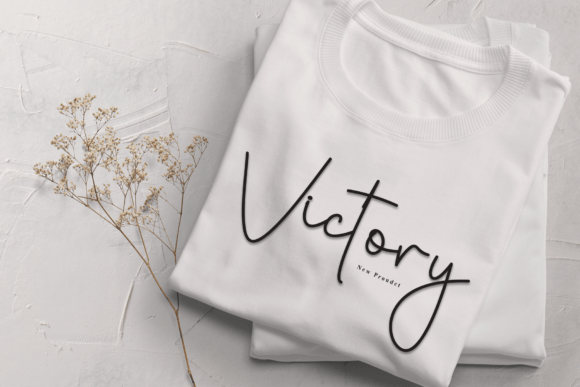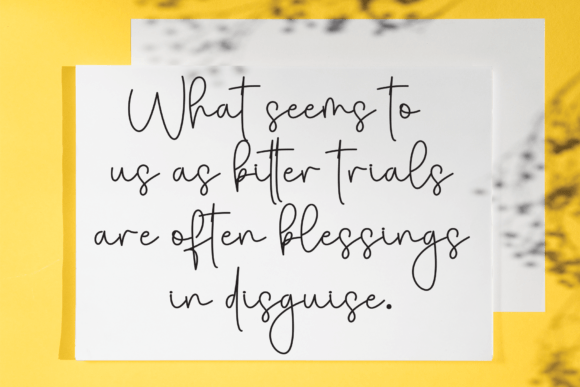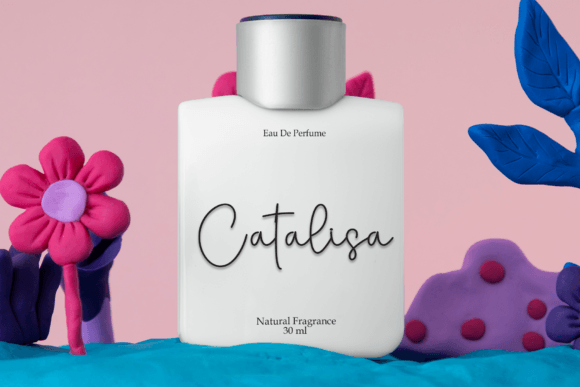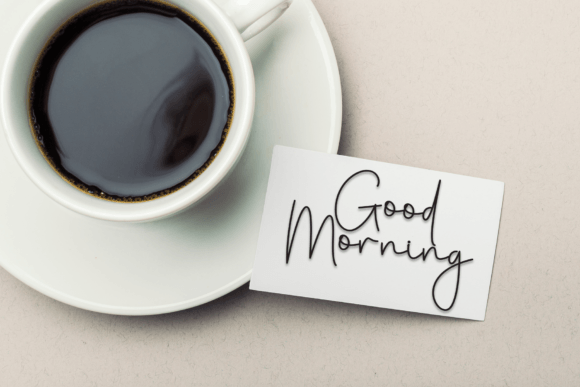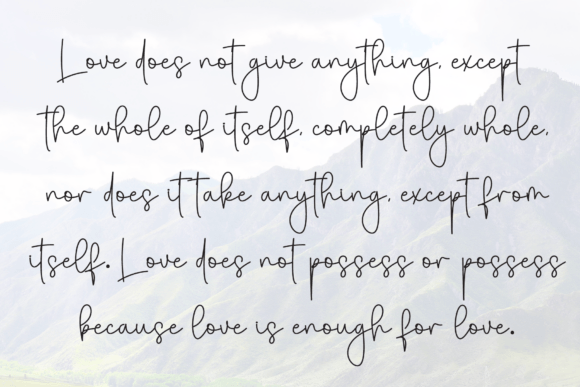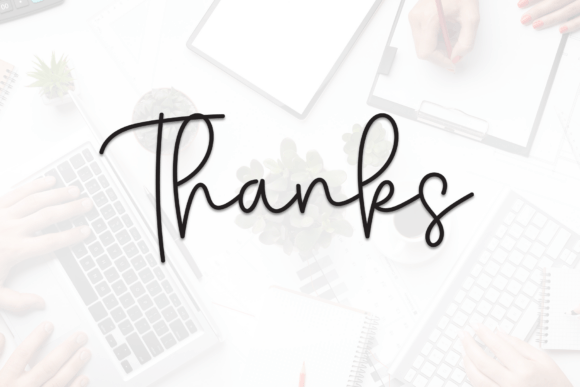
Unlock Your Creative Potential with Berliana Creative Font
Have you ever stared at a blank canvas, wondering where to start, but then scribbled down a few loose lines and suddenly, your design came to life? That’s the magic of creativity. As designers, we’ve all been there – and that’s exactly why we need the perfect font to bring our visions to life. Enter the enchanting world of Berliana Creative Font, a sweet and friendly handwritten font that’s as versatile as it is beautiful.
Berliana Creative Font is designed to be your ultimate design companion, offering a natural and unique style that’s perfect for a wide range of projects. From wedding invitations to social media graphics, this font is the perfect addition to any design. With Berliana Creative Font, the only limit is your imagination, making it an invaluable tool for designers of all levels.
Berliana Creative Font Key Features
- Font Family: Berliana, Berliana Italic, Berliana Bold, Berliana Bold Italic
- Unique Characteristics: This script font features elegant, cursive, and hand-painted elements, making it perfect for creative projects, such as wedding invitations, logos, and packaging design.
Designer Review: Berliana Creative Font
Overall, I think Berliana Creative Font has some great qualities that make it a solid addition to any designer’s toolkit. ✨ The unique, cursive script style is perfect for creating a whimsical and elegant feel in your designs. I particularly love the way it flows on the page, making it ideal for headings and titles.
The font also includes a wide range of language support, which is a big plus for designers working on international projects. ✨ Additionally, the font files are well-optimized for web use, making it a great choice for digital projects.
However, there are a few limitations to consider. ⚠️ The font’s script style can be a bit difficult to read in smaller sizes, and it may not be the best choice for body text. Additionally, the font’s unique style can be a bit overpowered by bold or italic styles, so it’s best to use them sparingly.
- Unique, cursive script style
- Wide range of language support
- Well-optimized for web use
Overall, I’d recommend Berliana Creative Font for designers looking to add a touch of elegance and whimsy to their projects. While it may not be suitable for every project, it’s a great choice for headings, titles, and other design elements where a unique script style is desired.
Berliana Creative Font is perfect for:
1. Creative projects such as brochures, flyers, and posters.
2. Branding and marketing materials.
3. Social media graphics and ads.
4. Any project that requires a unique and creative touch.
Ostrich Sans is a modern sans-serif font designed for digital use. It features a clean and minimalist design, making it perfect for use in logos, headings, and body text. Ostrich Sans is more versatile than Berliana Creative Font, as it comes in a wider range of weights and styles.
Great Vibes is a beautiful script font that’s ideal for use in titles, headings, and quotes. It features a unique, handwritten feel that’s perfect for adding a touch of personality to your designs. Great Vibes is more elegant than Berliana Creative Font, but lacks its versatility.
Playfair Display is a luxurious serif font that’s perfect for use in titles, headings, and body text. It features a classic, elegant design that’s reminiscent of traditional typography. Playfair Display is more formal than Berliana Creative Font, but lacks its modern feel.
The recommended font size for using the Berliana Creative Font is between 12pt and 24pt. This font is designed to be versatile and can be used at various font sizes, but it’s best suited for body text and headings at the recommended sizes.